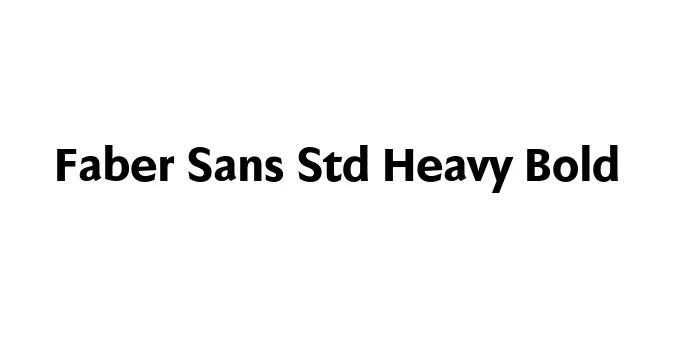
Faber Sans Std Heavy Bold
Designed by Jochen Schuss
Faber Sans Std Heavy Bold is a sophisticated sans-serif typeface designed by Jochen Schuss. This specific weight belongs to a larger family known for its unique synthesis of geometric precision and humanistic warmth. The font features clean, open counters and a vertical stress that ensures high legibility, even in its most robust and heavy forms. Its architecture is built on a modern foundation, making it an excellent choice for designers who need a typeface that feels both contemporary and grounded.
The Heavy Bold variant is engineered for maximum visual impact. It excels in high-contrast environments where its thick strokes and authoritative presence can command attention without sacrificing the elegance inherent in the Faber Sans design. Originally released through prominent foundries like FontFont, it has since become a staple for professional branding, editorial layouts, and high-end advertising campaigns that require a balance of power and approachability.
Faber Sans Std Heavy Bold Best Uses
Perfect for high-impact titles and large-scale display work in magazines or posters.
Excellent for creating a strong, stable, and authoritative brand logo.
Highly effective for bold slogans and promotional graphics that need to stand out.
Great for hero sections and call-to-action buttons that require immediate attention.